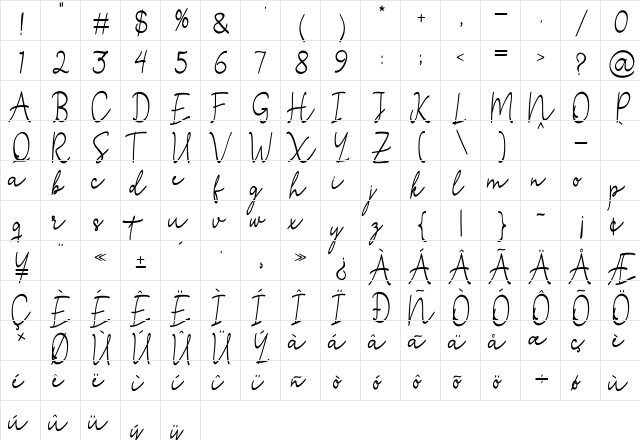
Stefian Script Regular
| Foundry | Munawir_Mightype |
| Designer | Munawir_Mightype |
Design Context for Stefian Script Typeface
Stefian Script flows with the natural rhythm of handwritten lettering, making it ideal for designs that call for warmth and personal expression.